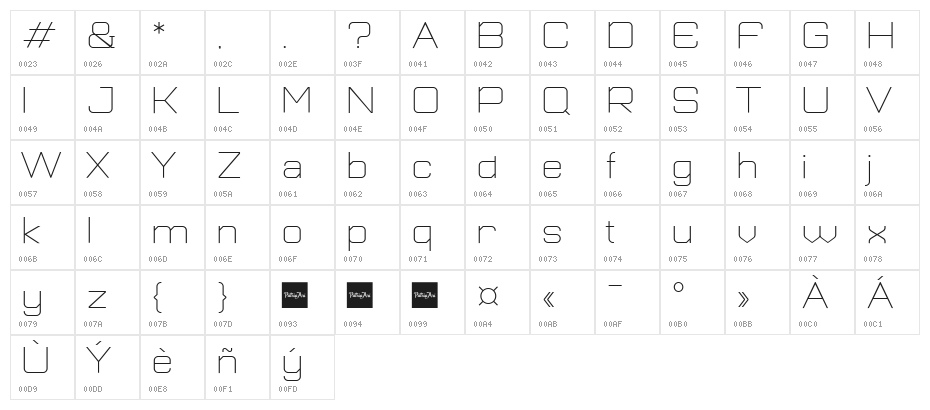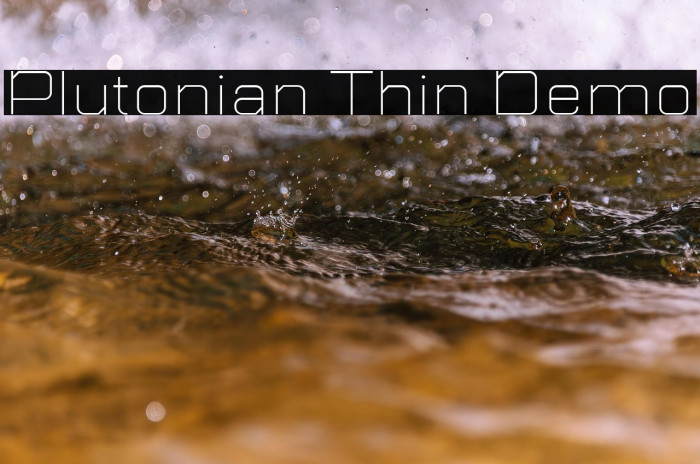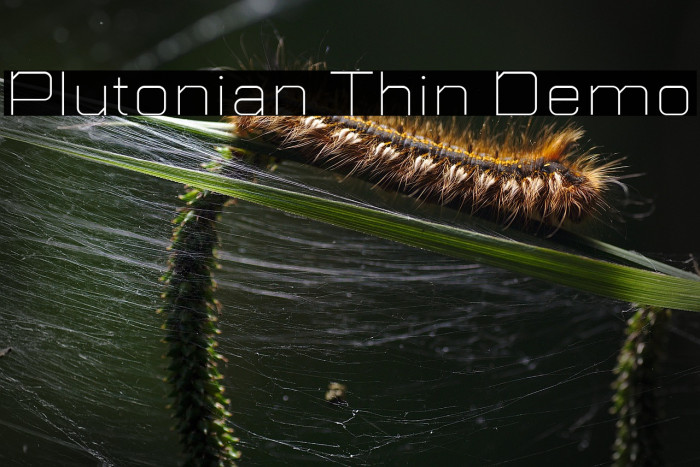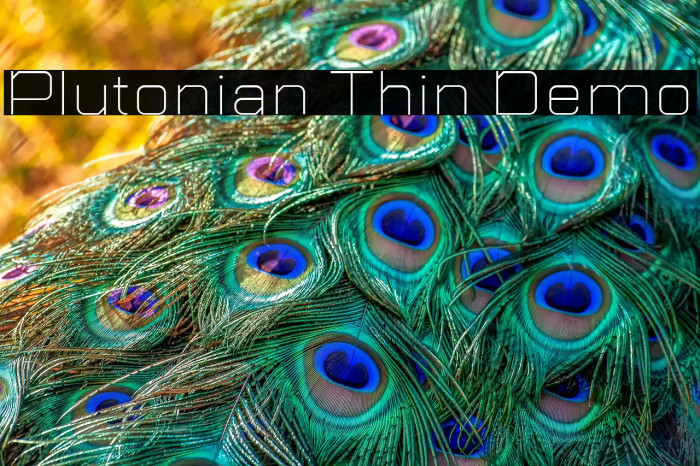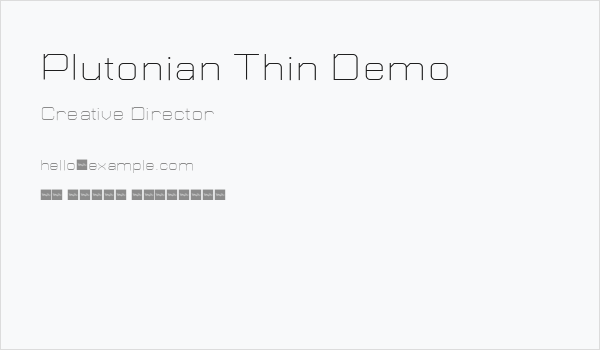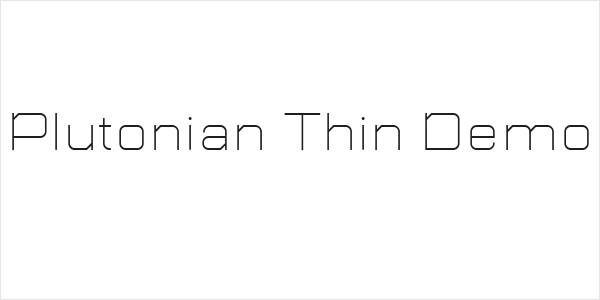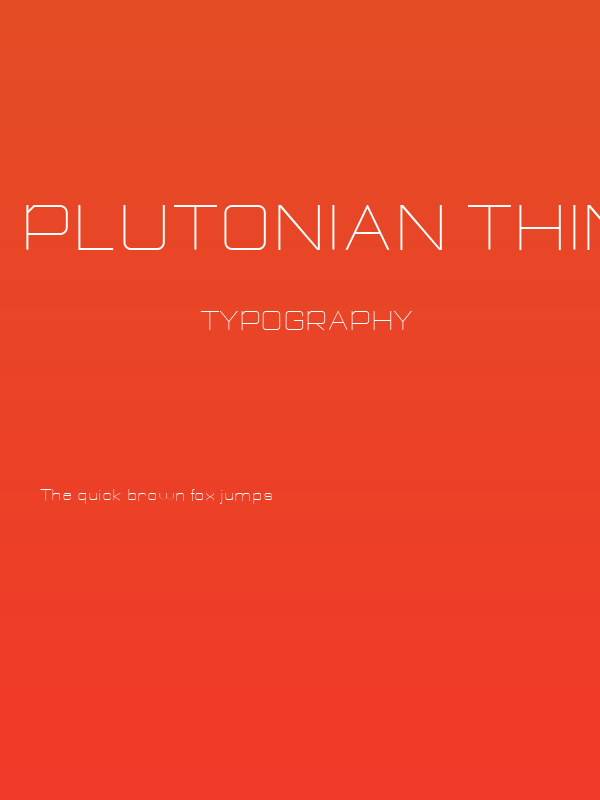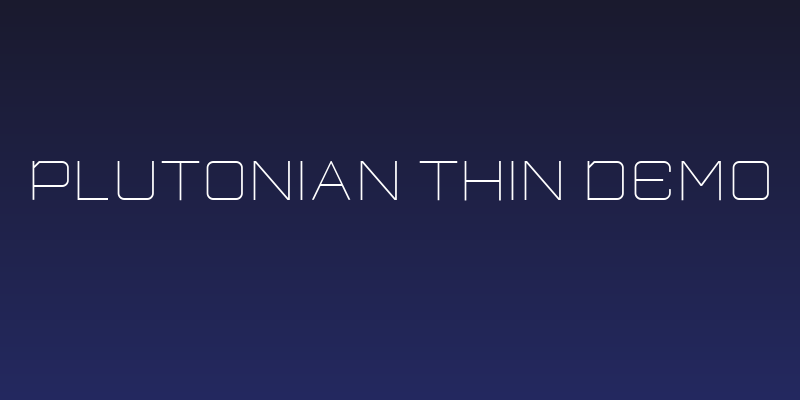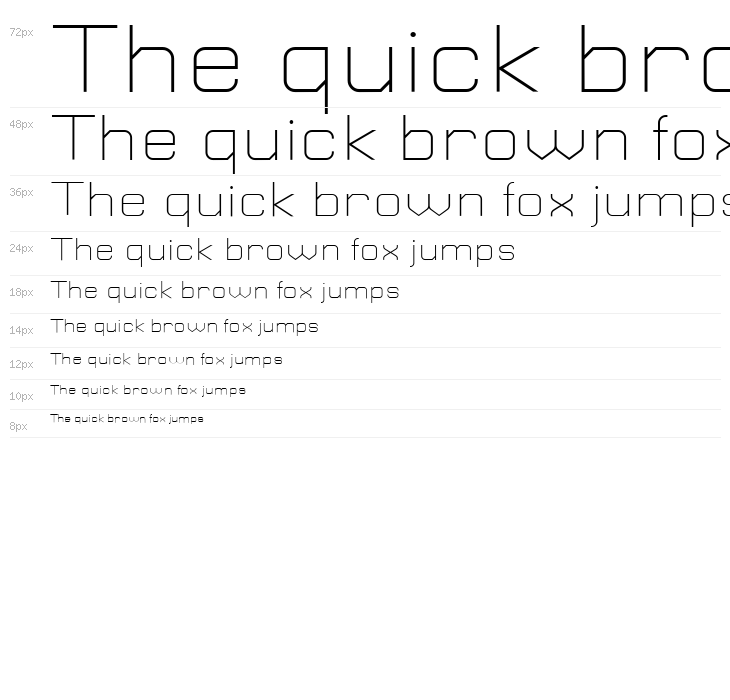
Plutonian Thin Demo Font
Plutonian Thin Demo Description
This font features a sleek and modern design with thin, geometric lines that give it a futuristic appearance. The characters are constructed with precision, showcasing a minimalist aesthetic that is both elegant and functional. The uppercase and lowercase letters maintain a consistent style, with uniform stroke widths and clean edges. The numerals and special characters are designed to complement the alphabet, maintaining the same thin and airy structure. This font is ideal for projects that require a contemporary and sophisticated look, offering clarity and style in equal measure.
| Use Case | Headlines, Logos, Web design |
| Proposed Projects | Ideal for tech branding, modern web design, minimalist posters, and futuristic interfaces. |